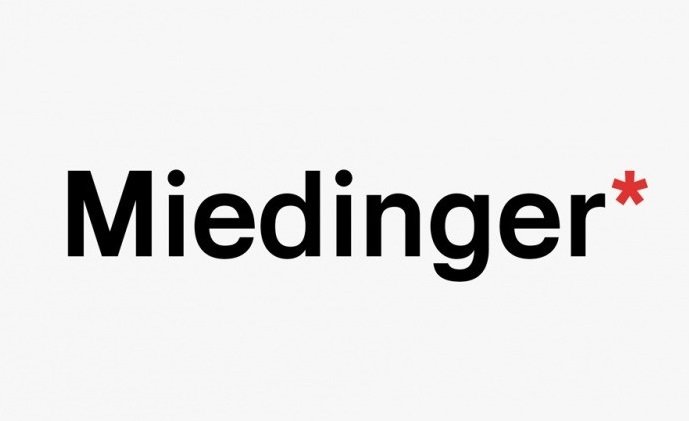
Miedinger Font
This font is a multi-weight modern chic typeface that is classy but still fun. The family comes in two weights with matched Italics.
Miedinger* is a clean and legible typeface, which is well suited for a variety of typographic applications such as headlines and small texts.